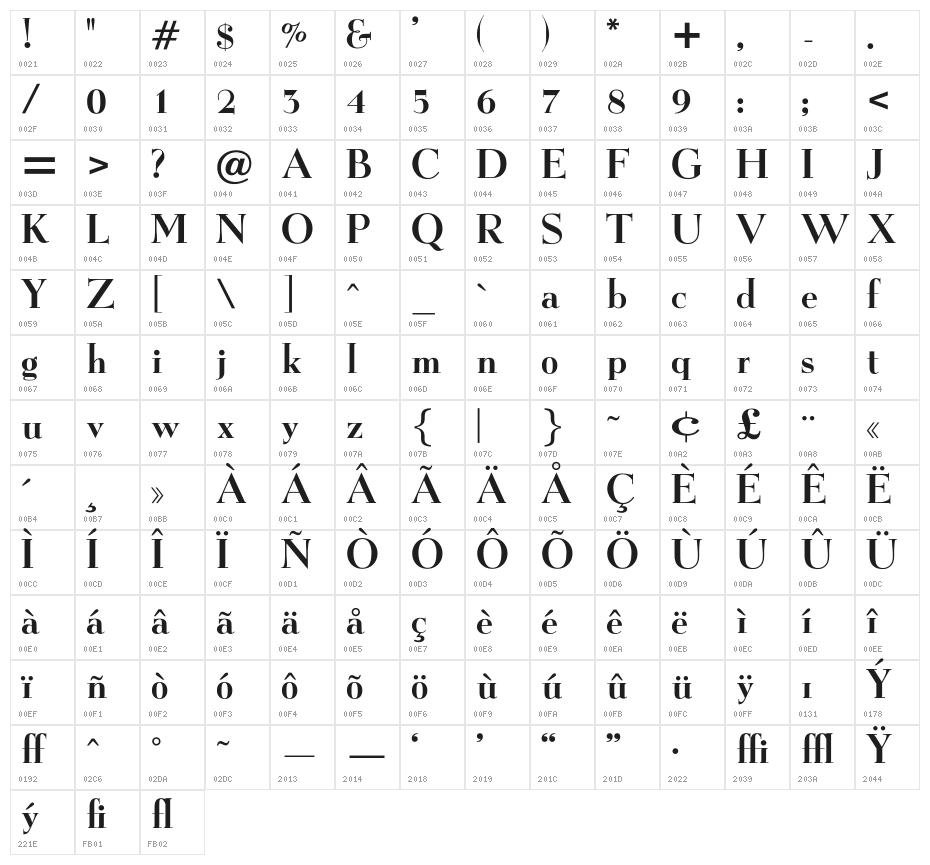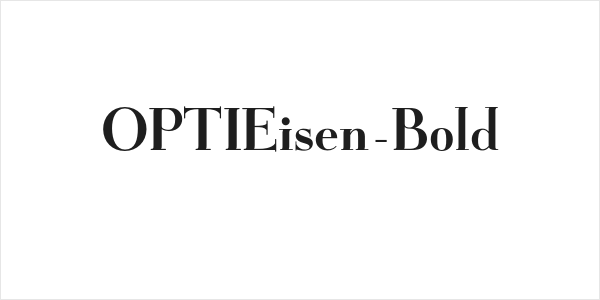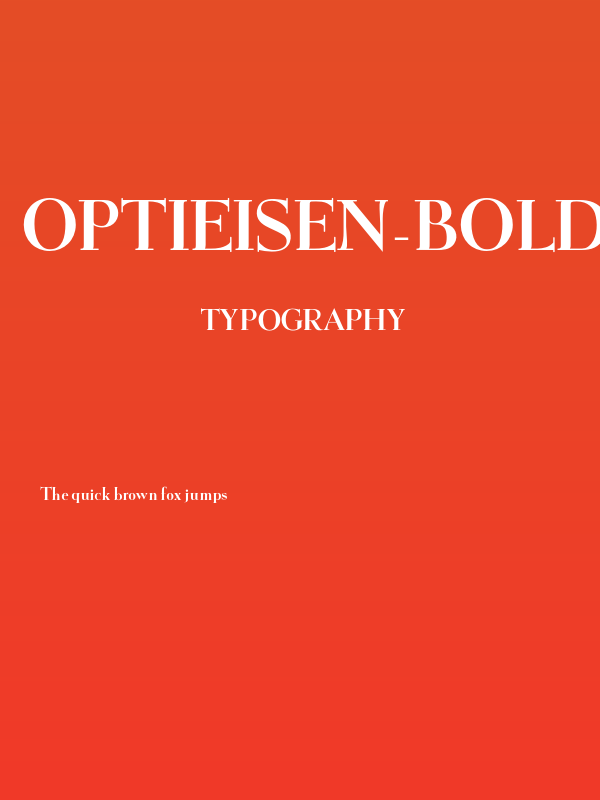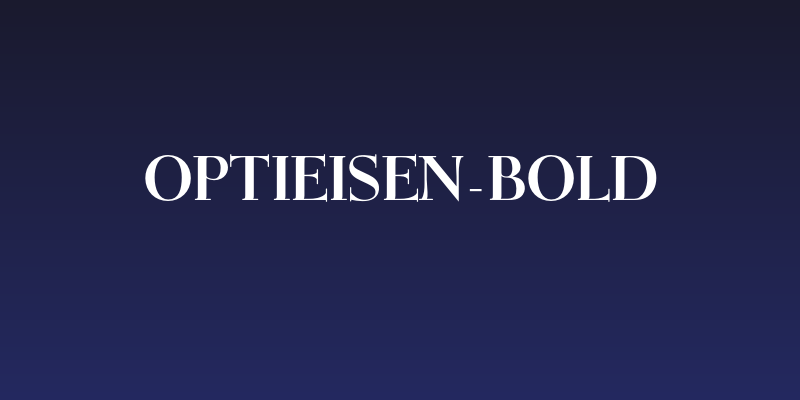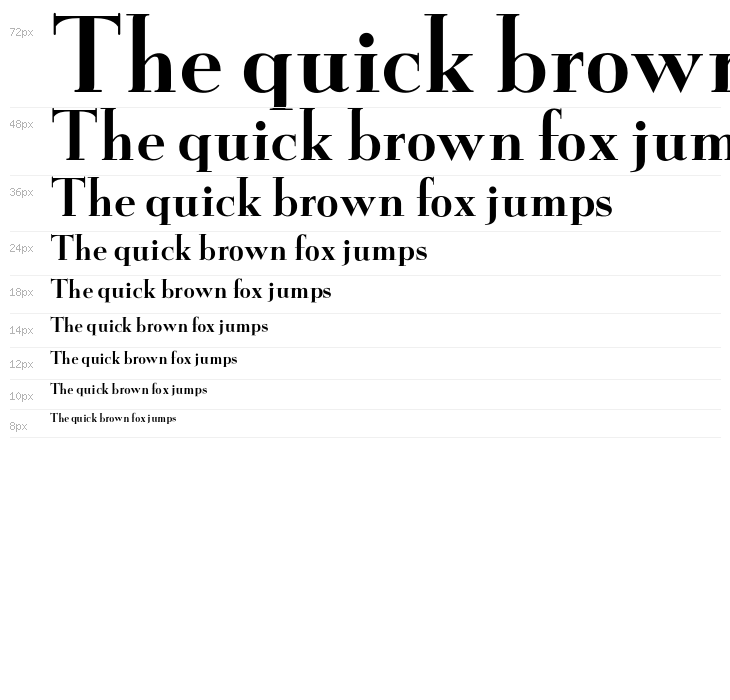
OPTIEisen-Bold Font
OPTIEisen-Bold Description
This font features a bold and elegant serif design, characterized by its strong vertical lines and subtle curves. The uppercase letters exhibit a classic and authoritative presence, while the lowercase letters maintain a harmonious balance with their slightly rounded edges. The numerals are clear and distinct, ensuring readability. Special characters are designed with the same attention to detail, offering a cohesive look across all glyphs. The overall appearance is sophisticated, making it suitable for formal and professional applications.
| Use Case | Headlines, Logos, Editorial design |
| Proposed Projects | Ideal for use in editorial design, book covers, corporate branding, and formal invitations. |